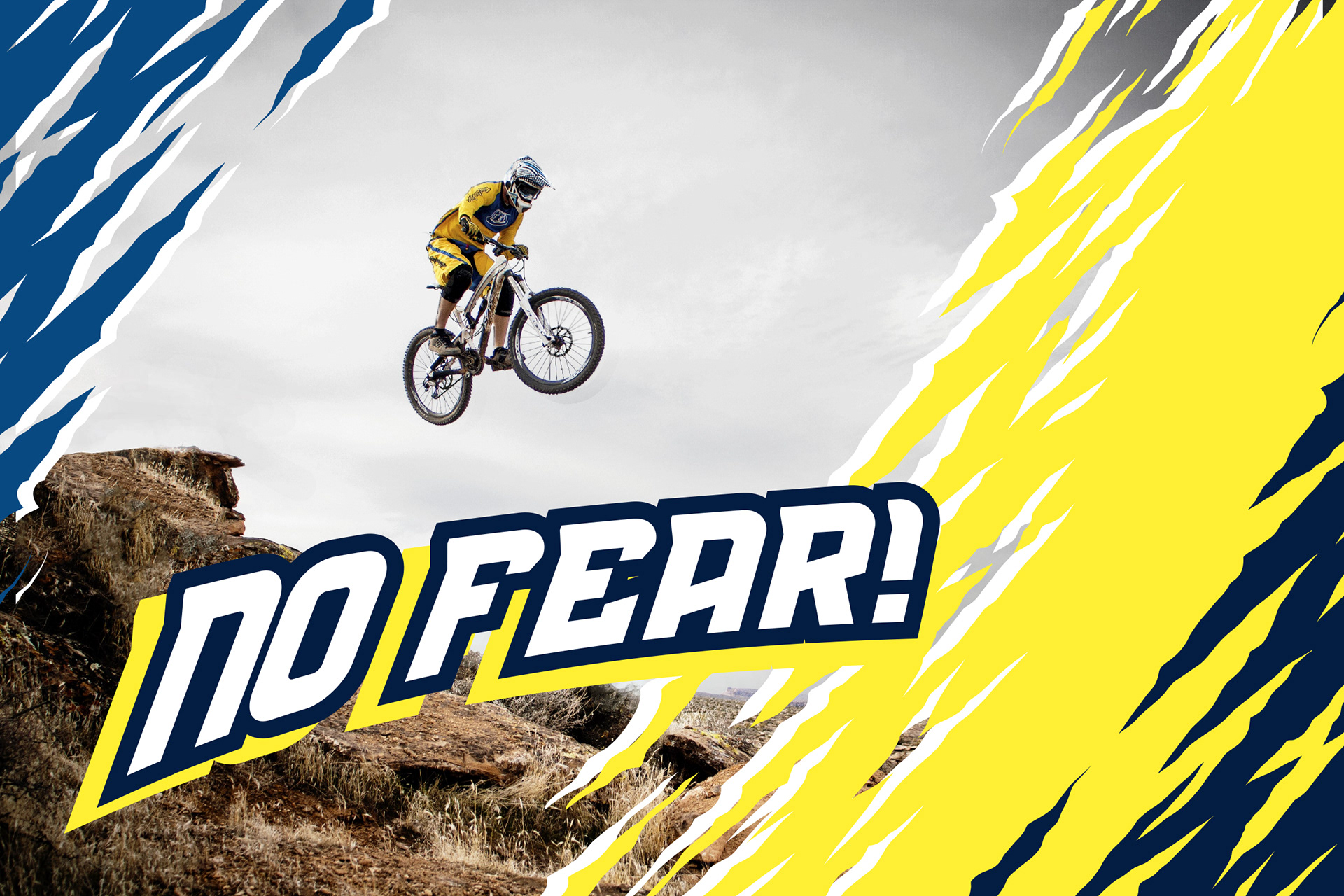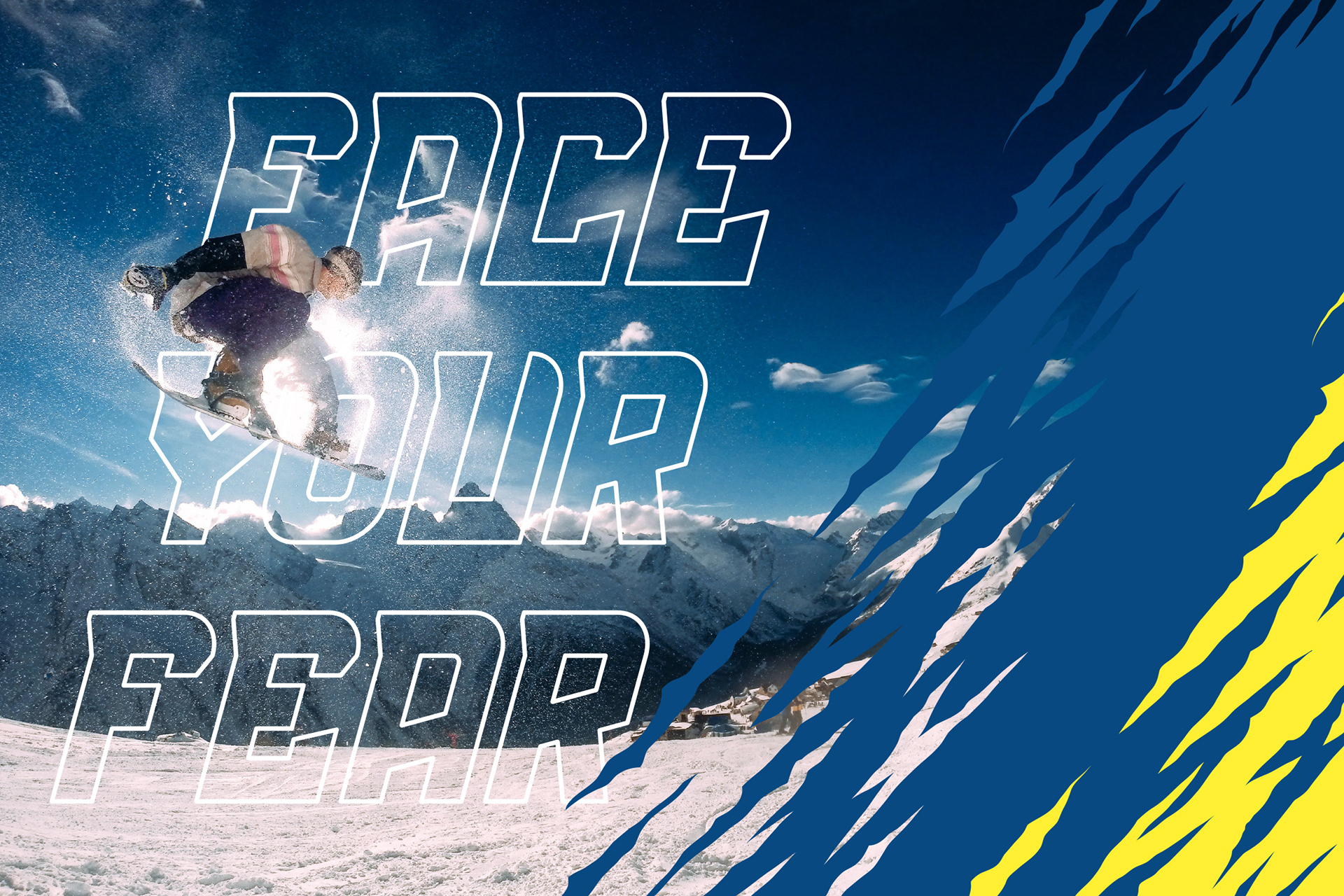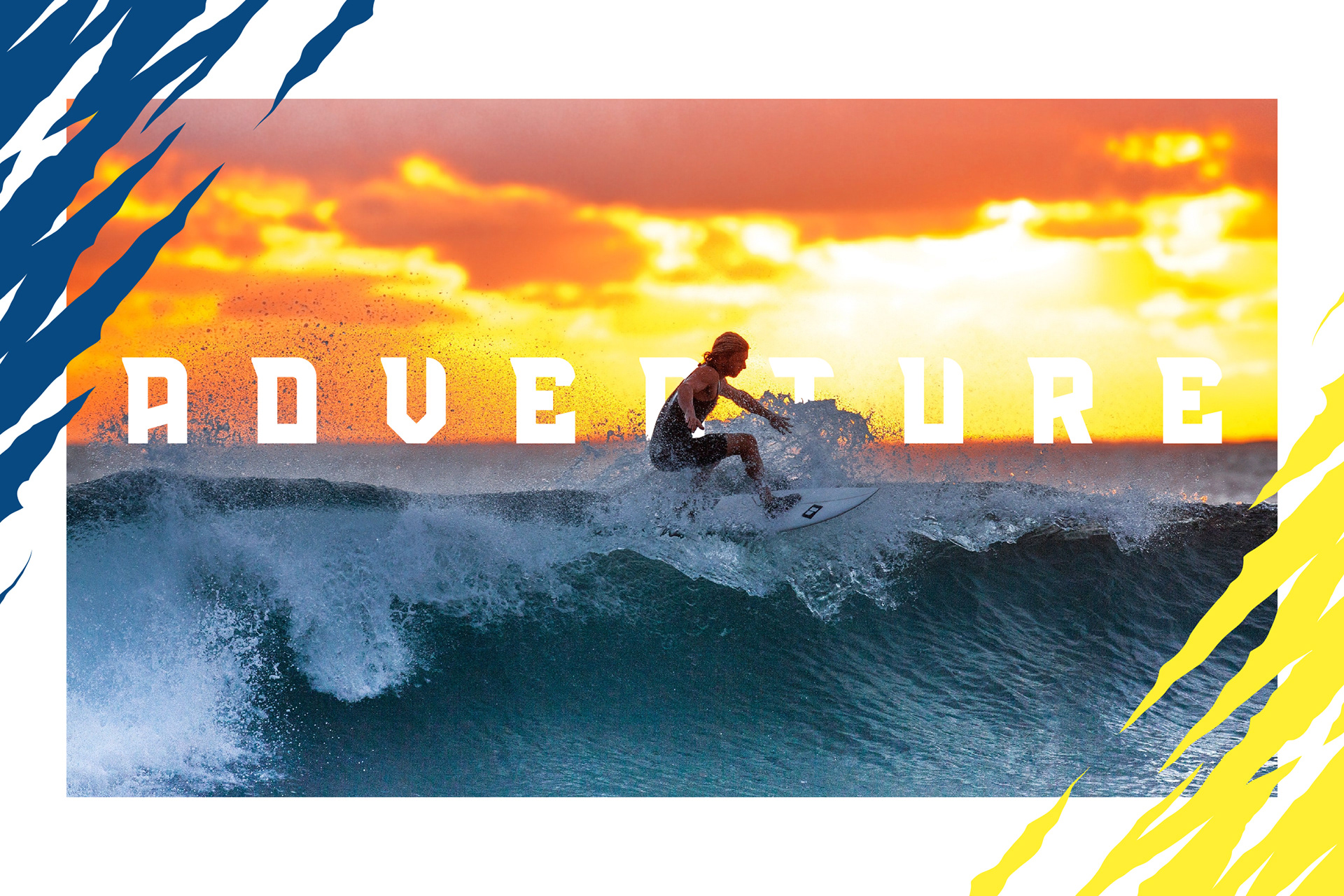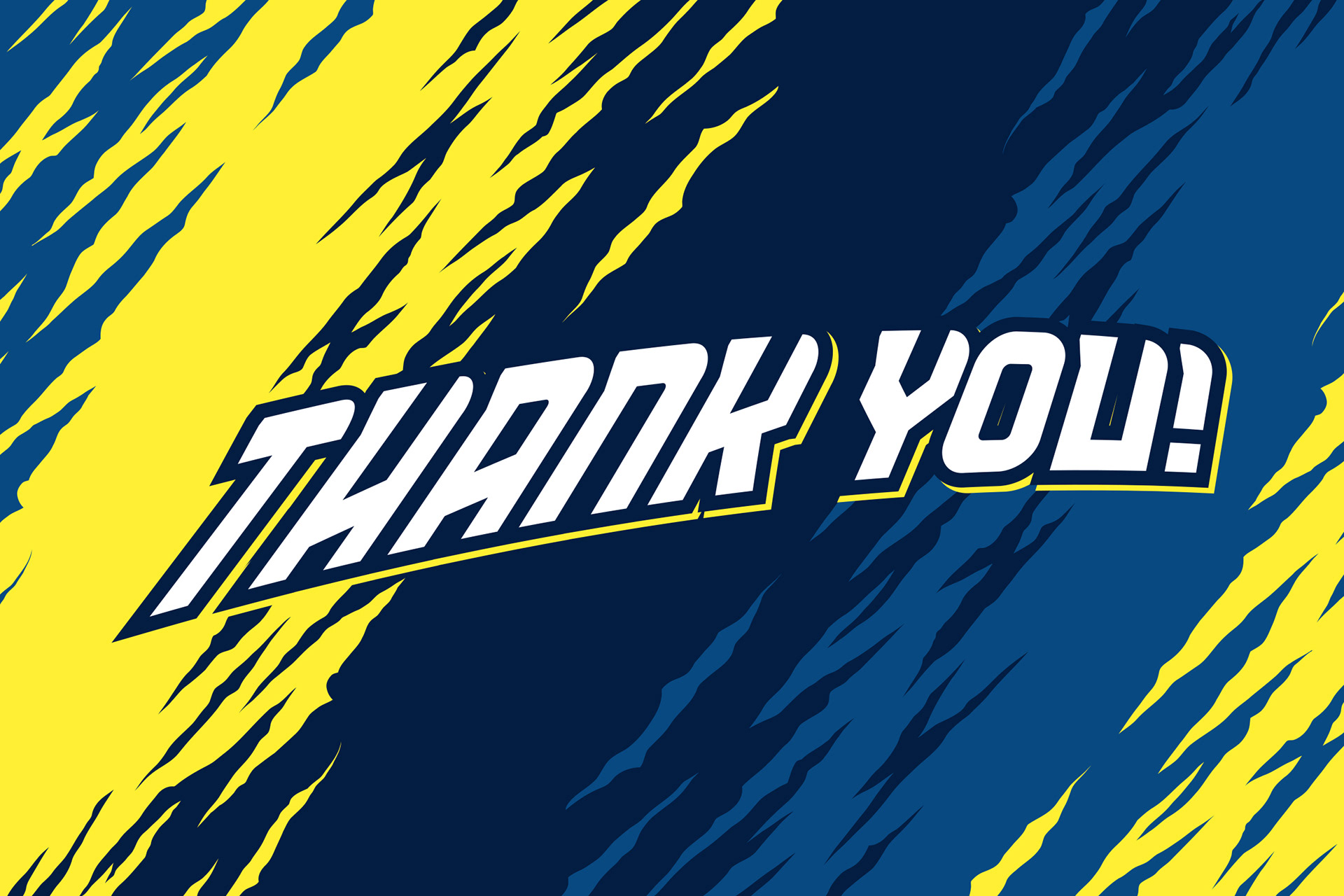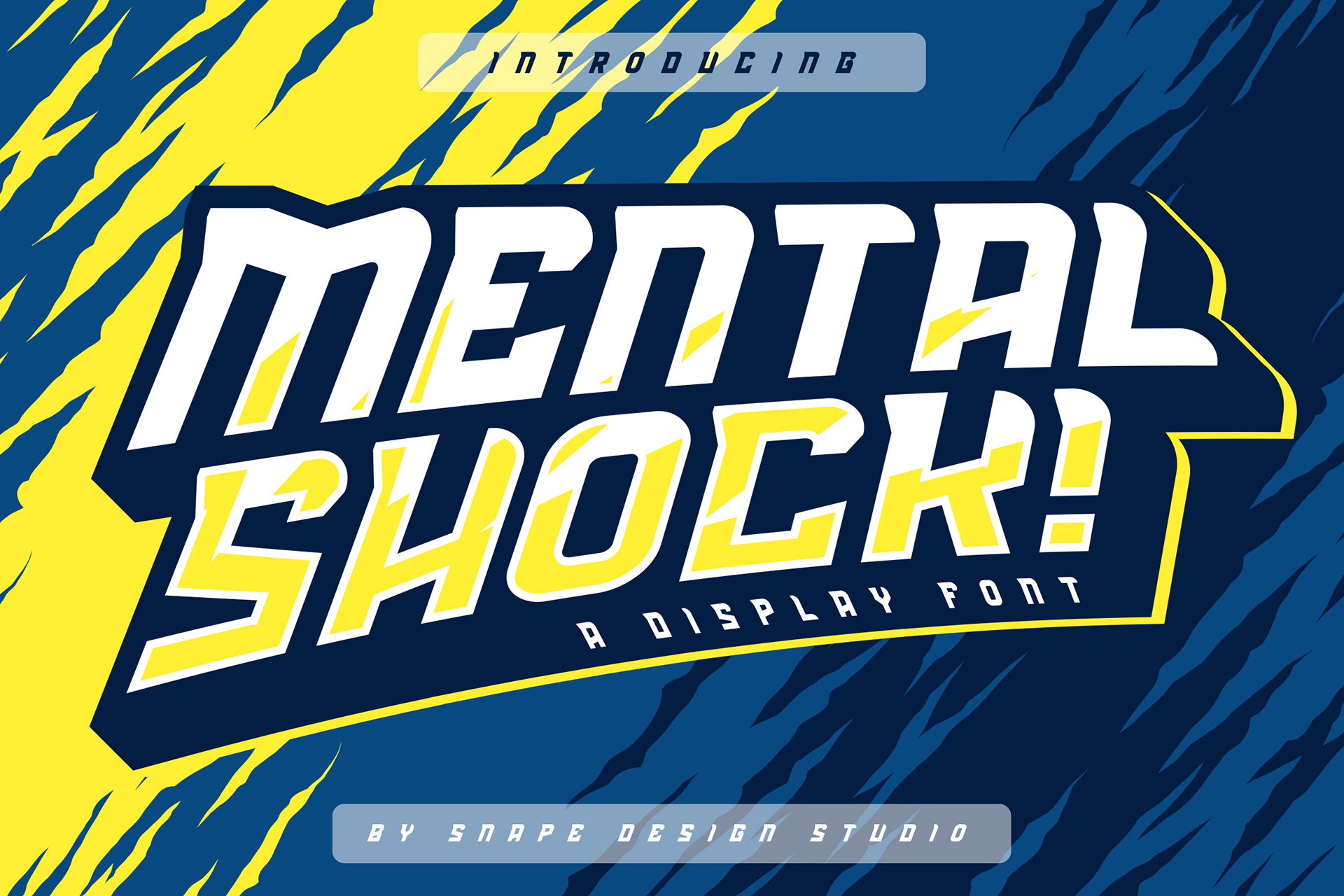
ABOUT THE FONT
Mental Shock is a bold font, with a strong sporty look. Modern and chunky, this font is incredibly versatile, fitting a wide variety of designs. Suitable for sport design, team, jersey, league, movie, documenter, film, logo, poster, game, book cover, headlines, title and many more projects.